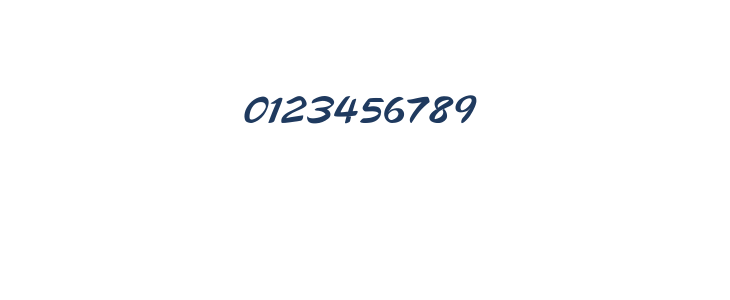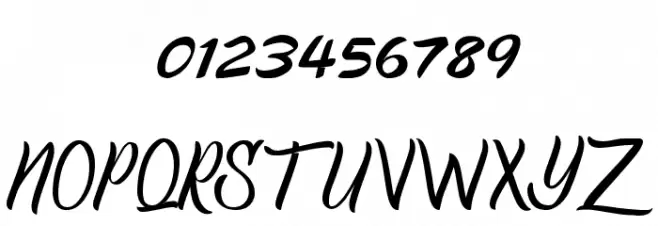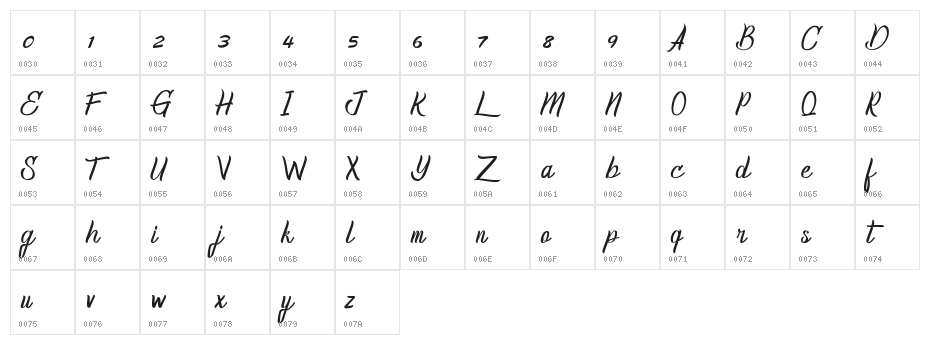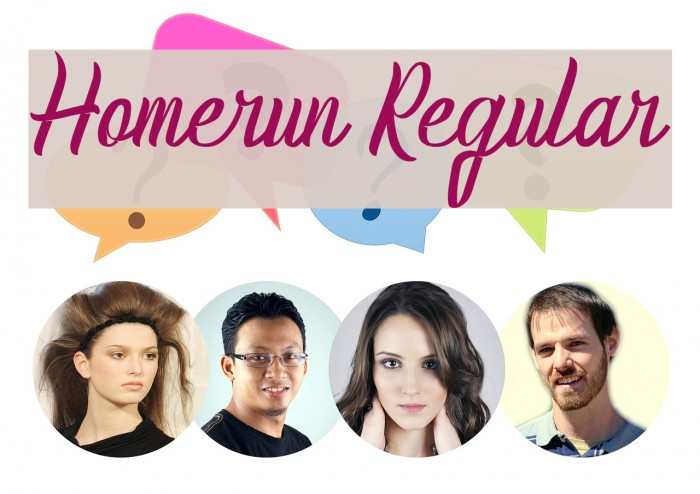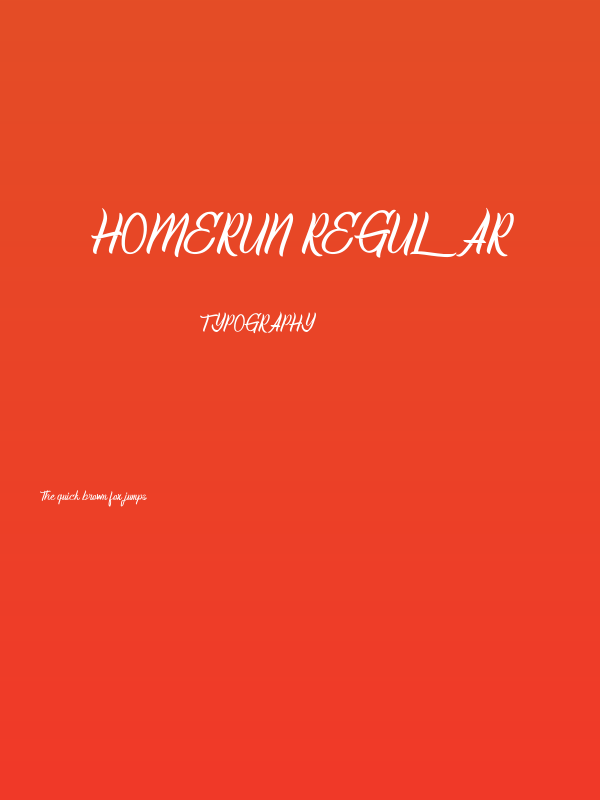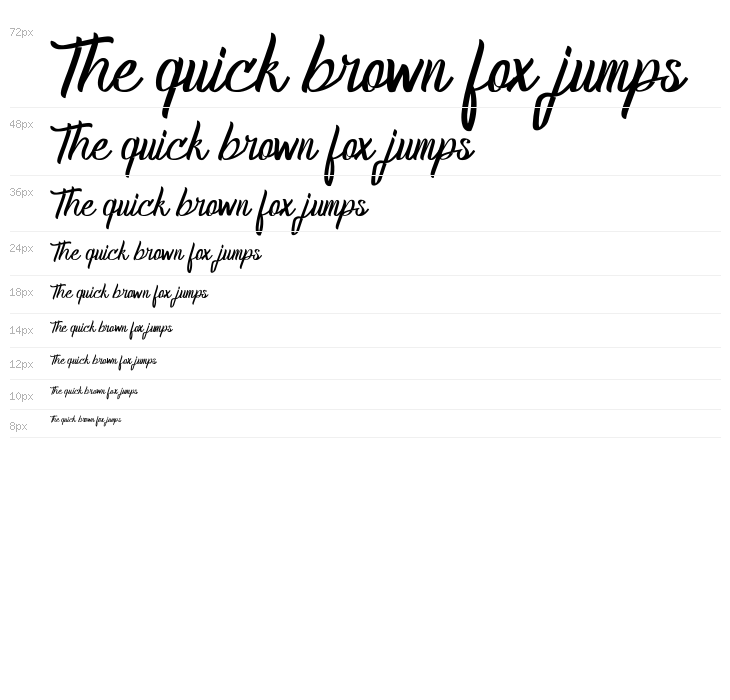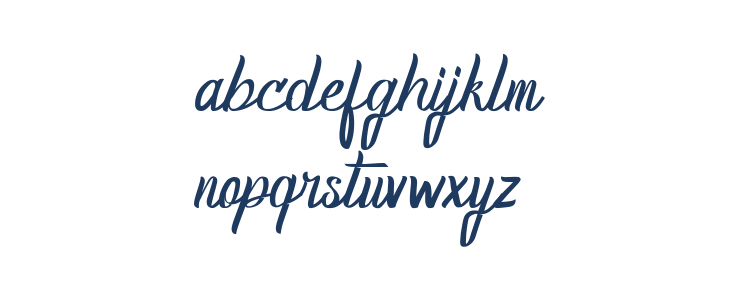
Homerun Regular Font
Homerun Regular Description
This font features a dynamic and flowing script style, characterized by its elegant and cursive letterforms. The uppercase letters exhibit a graceful, sweeping motion, while the lowercase letters maintain a consistent fluidity, enhancing readability. The numerals are designed to complement the overall script aesthetic, maintaining the same flowing lines. The font's design is reminiscent of traditional calligraphy, with a modern twist that makes it suitable for various creative applications. The strokes are moderately thick, providing a balanced contrast that ensures clarity and legibility.
madeDeduk